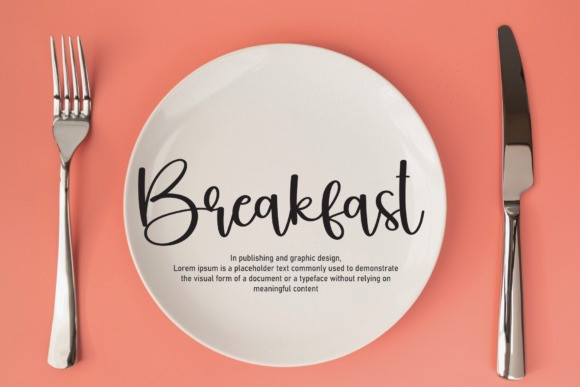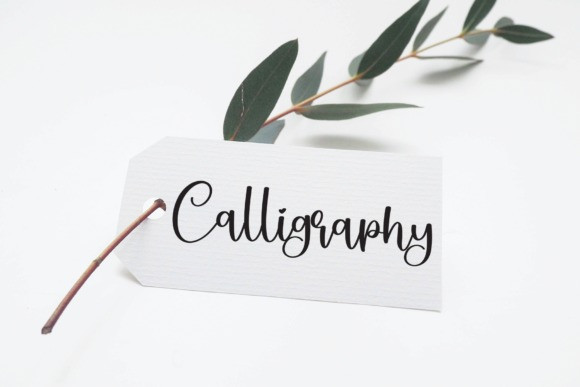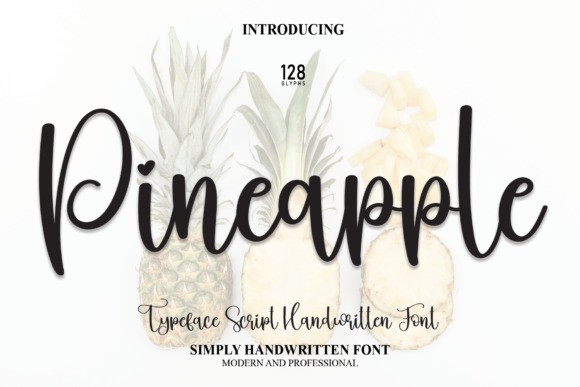
Pineapple Font
Pineapple Font, features letters that are perfect for wall displays, wedding invitations, social media post logos, advertisements, product packaging, product designs, labels, photography, watermarks, invitations, stationery, and any project that requires a handwritten taste.